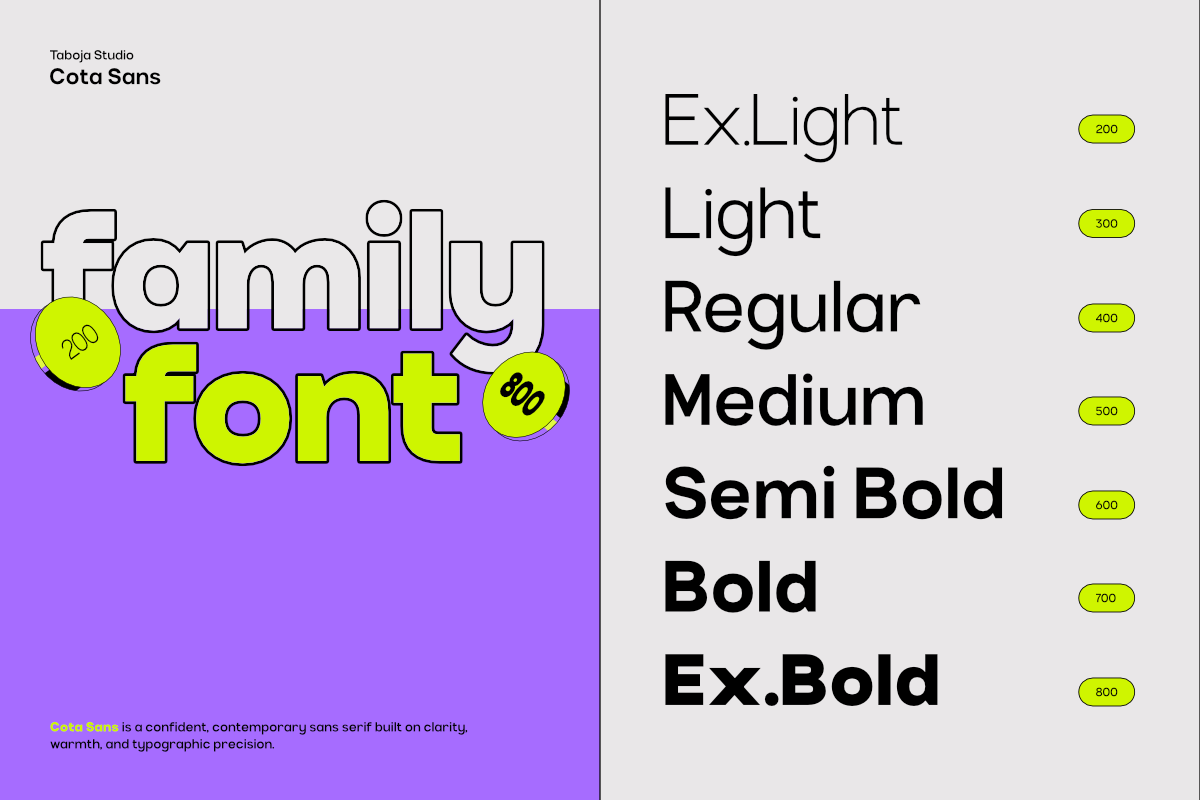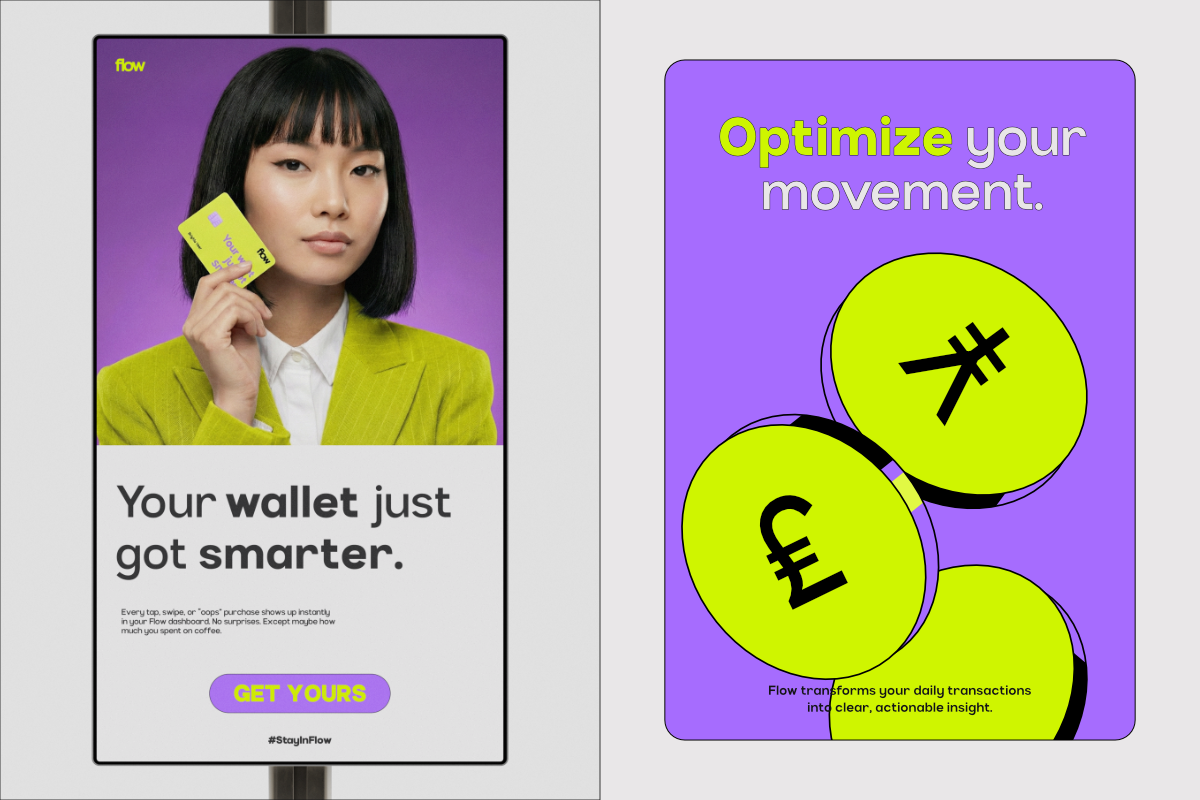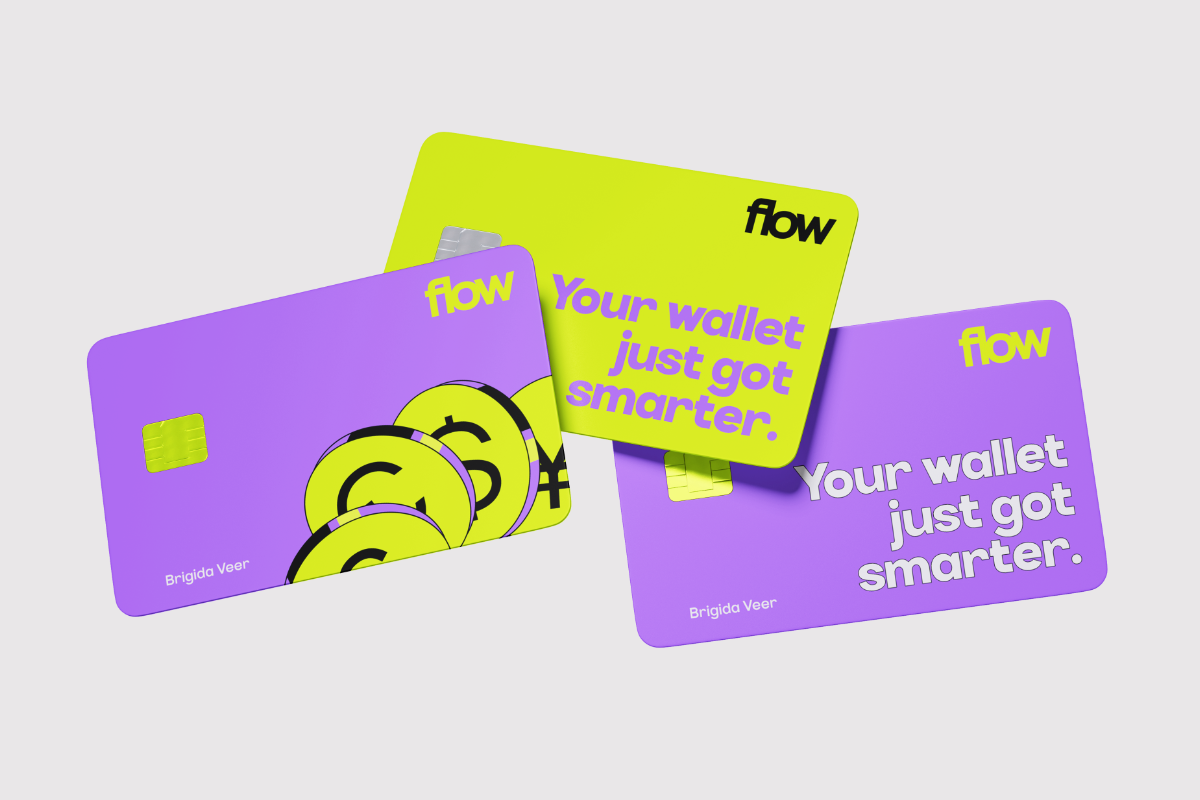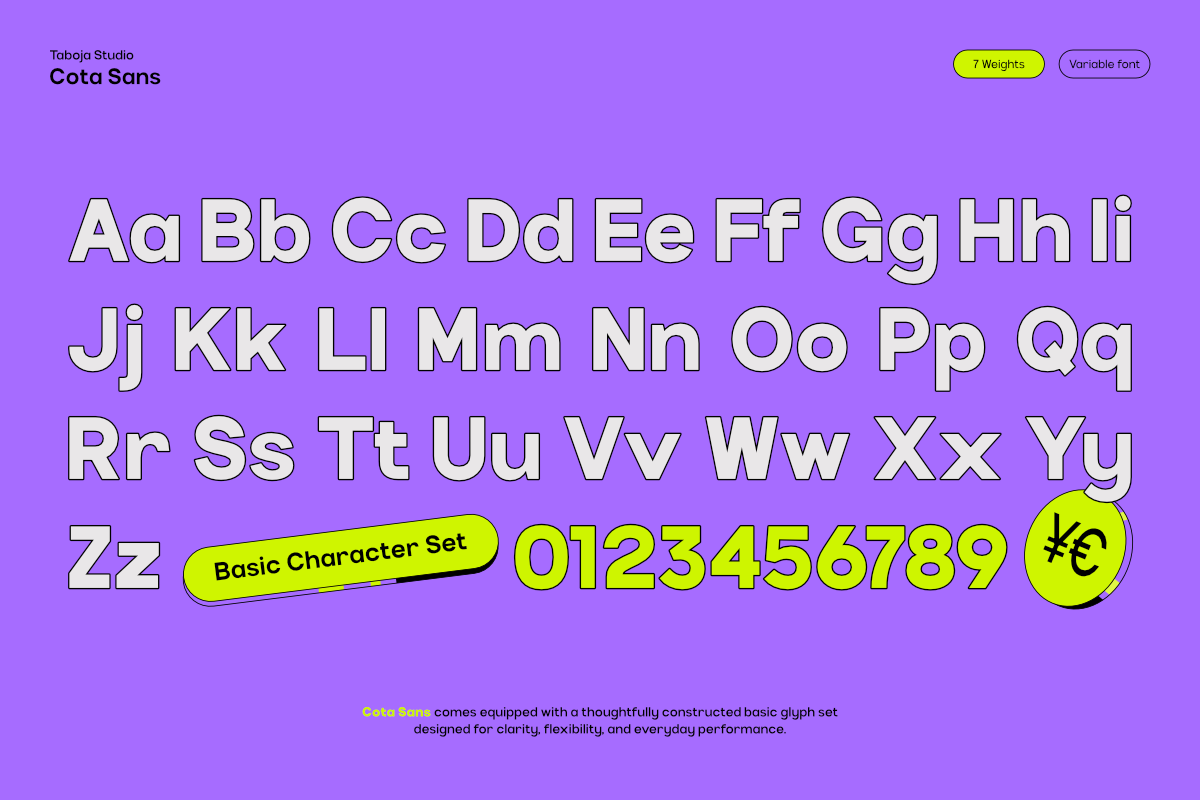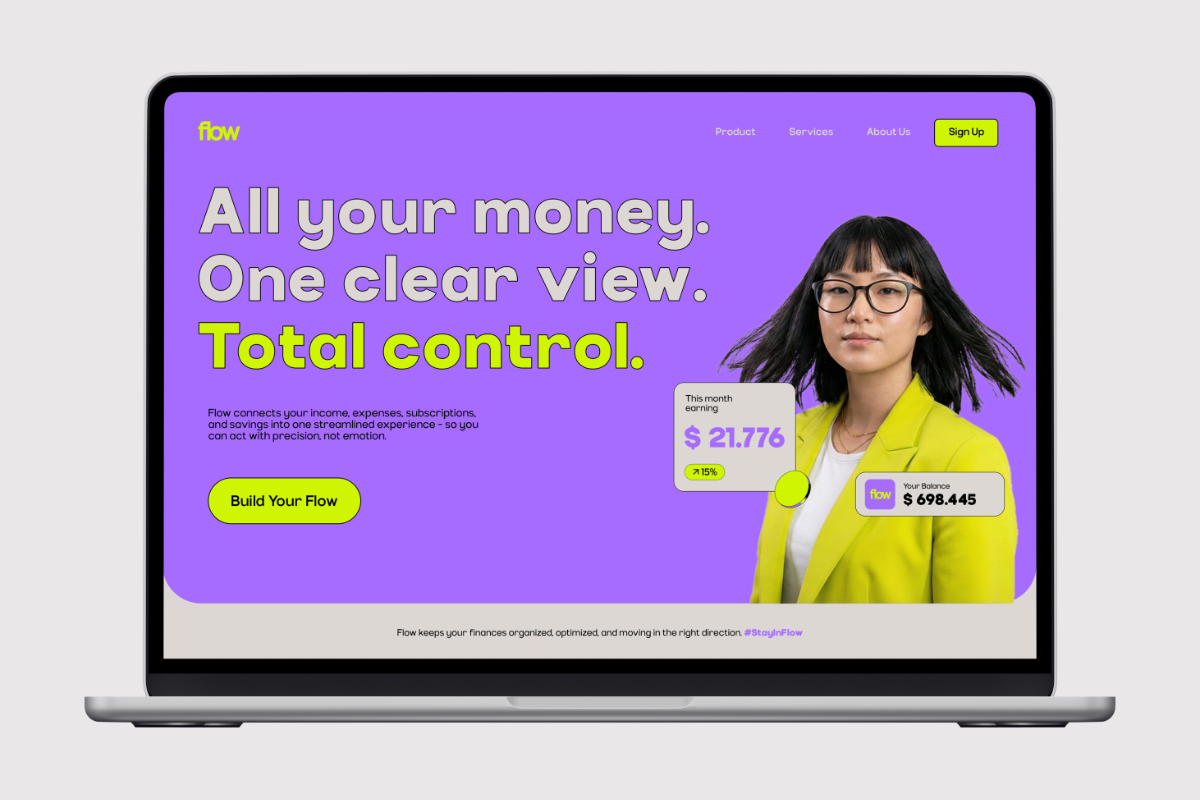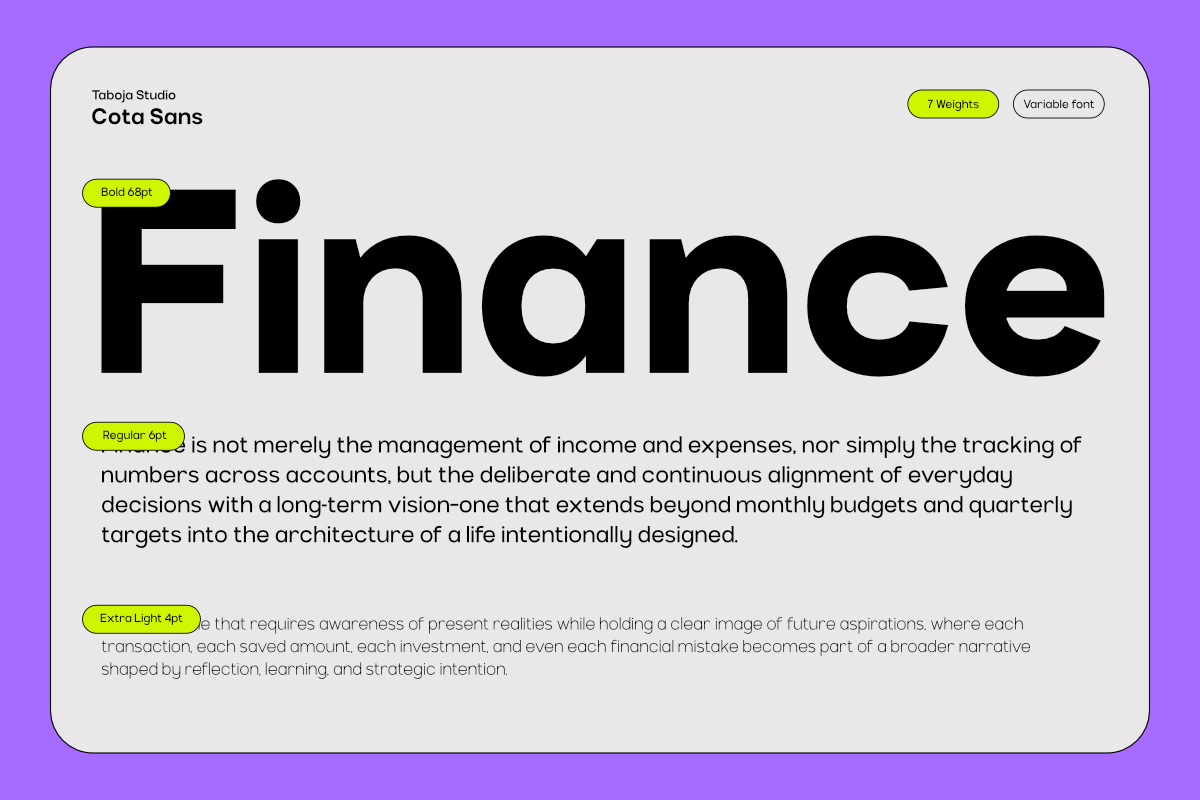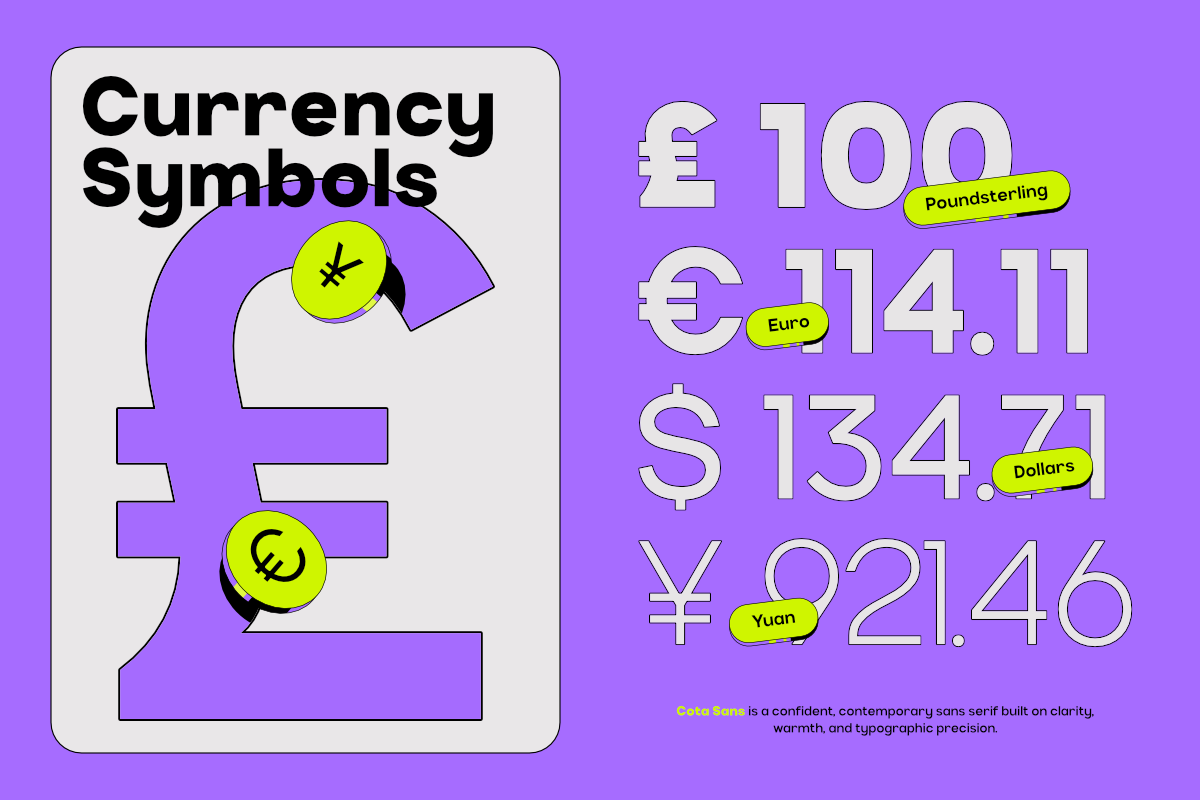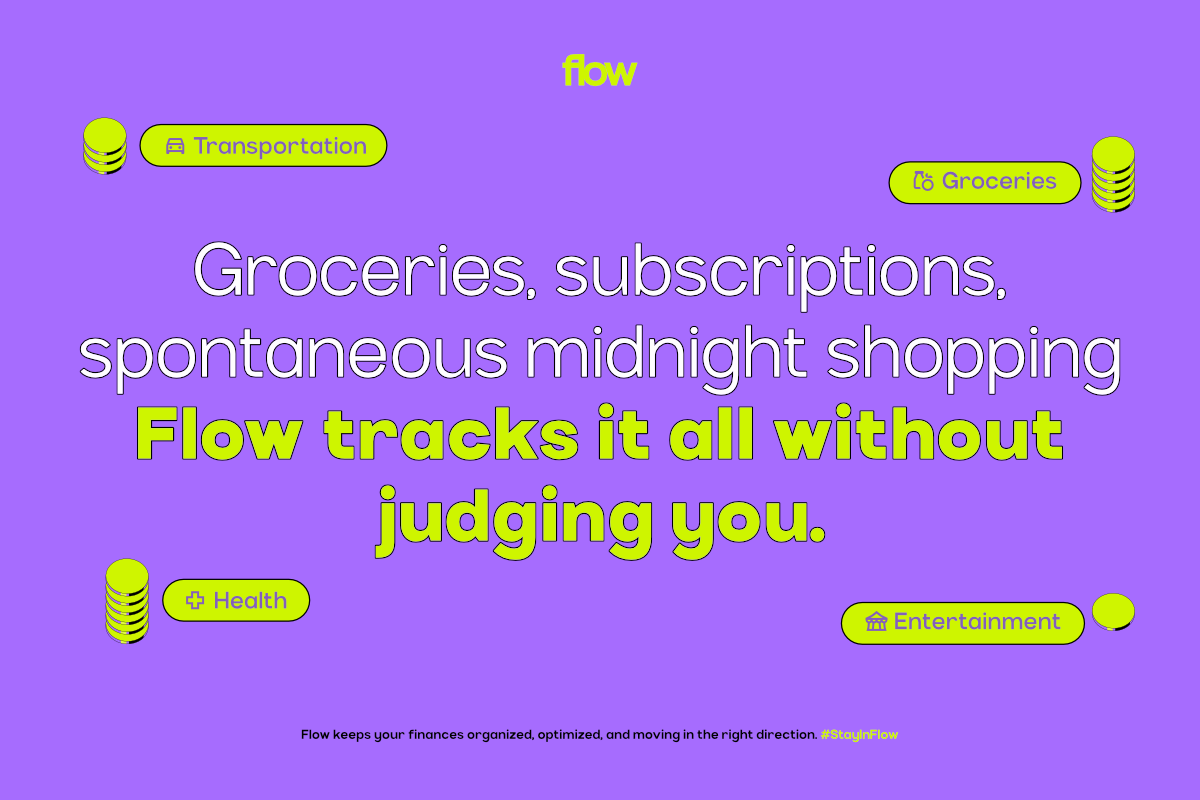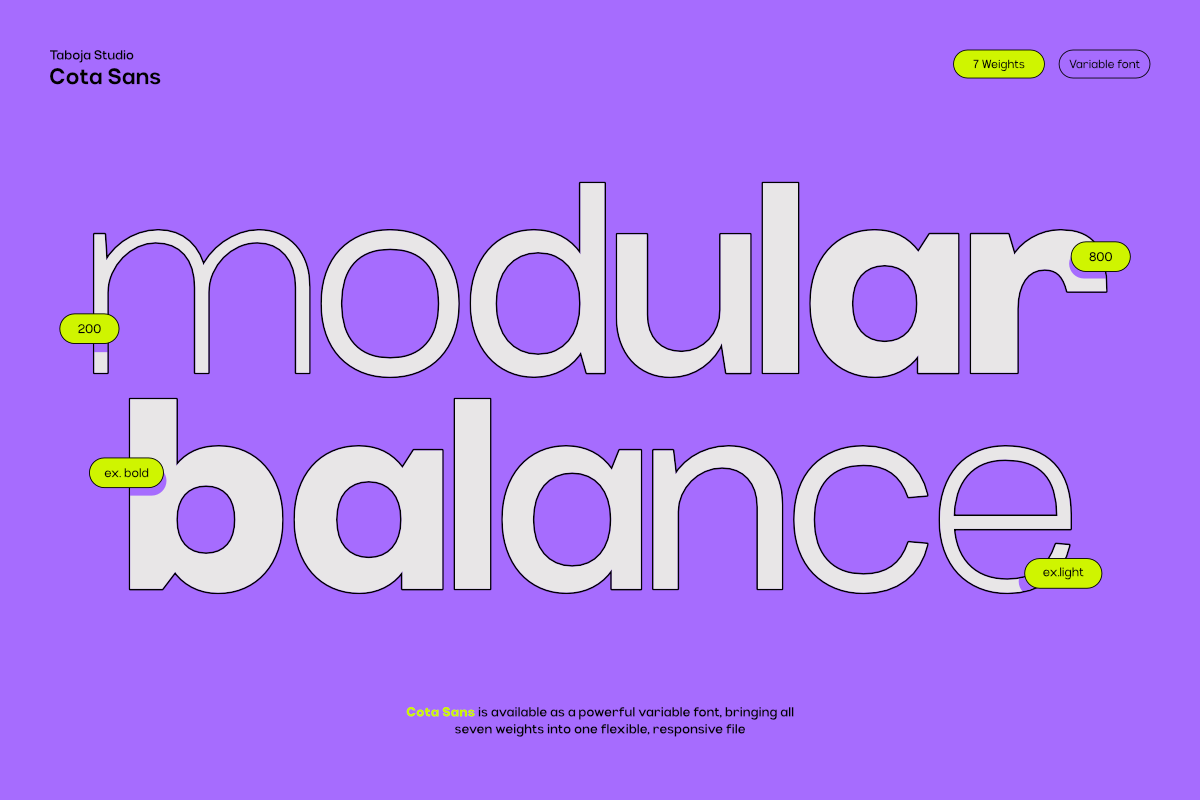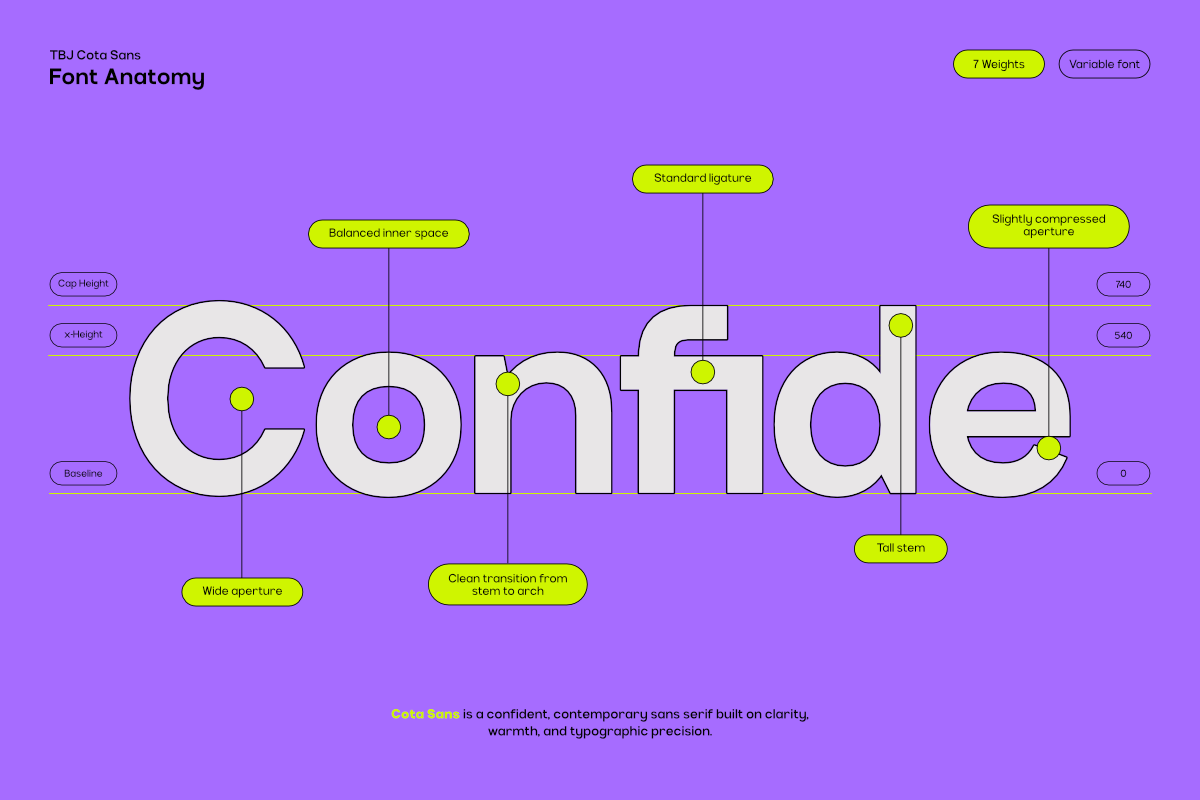
TBJ Cota Sans Grotesk Modern Sans
Cota Sans was not created to shout. It was designed to speak clearly, confidently, and with purpose.
In a world where visual noise competes for attention, Cota Sans stands as a quiet system of order. A contemporary grotesk sans serif built on clarity, warmth, and precision, it brings structure to chaos and calm to complexity. Every curve, every space, every weight has been carefully considered to deliver a typeface that feels both rational and human.
Inspired by the timeless discipline of classic grotesk typography, Cota Sans reinterprets those foundations for today’s design landscape. It carries a neutral tone but never feels cold. Subtle humanist touches soften its geometry, allowing it to adapt effortlessly across branding, editorial, and digital interfaces.
At its core, Cota Sans is a variable font system fluid, responsive, and built for modern workflows. With a continuous weight axis ranging from Extra Light to Extra Bold, it gives designers full control to shape hierarchy, expression, and rhythm without breaking consistency. Whether used for bold headlines or refined body text, it maintains balance and readability at every scale.
This isn’t just a typeface it’s a system designed to grow with your ideas.
Cota Sans doesn’t try to be everything. It focuses on being exactly what modern design needs: clear, flexible, and quietly powerful.